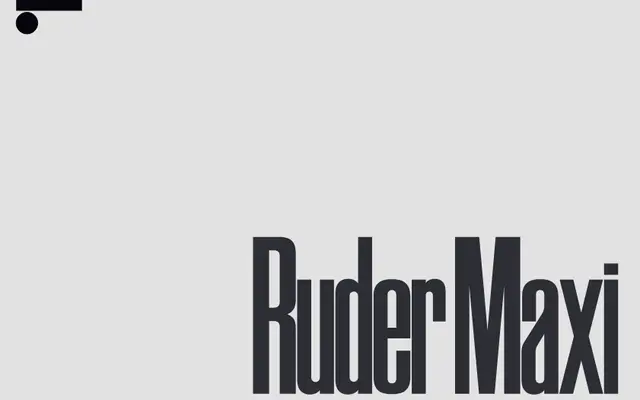
Ruder Plakat Maxi
Lineto · Hans-Christian Pulver, Arve Båtevik, Anatole Couteau · 2022
Ruder Plakat Maxi specimen from Lineto
A digital revival of Emil Ruder's 1950s wood-type poster font, extended by Hans-Christian Pulver and completed at Lineto with a variable version.
Originating from wood letters developed with students at the Allgemeine Gewerbeschule Basel in the early 1950s, the typeface was first proofed for archival purposes by long-time typography teacher Hans-Christian Pulver, who later reworked it digitally at 77. At Lineto, Arve Båtevik refined the drawings and expanded the character set, while Anatole Couteau produced the variable version and the Maxi extension, all in close consultation with Pulver. The design's defining quality is its formal severity: no calligraphic trace, near-total alignment, and letterforms that read as if assembled from a grid of modular elements.
A revival and digital expansion of Emil Ruder's wood-type poster font, characterised by strict modular construction, absence of calligraphic influence, and grid-based letter architecture — placing it firmly in display sans territory.